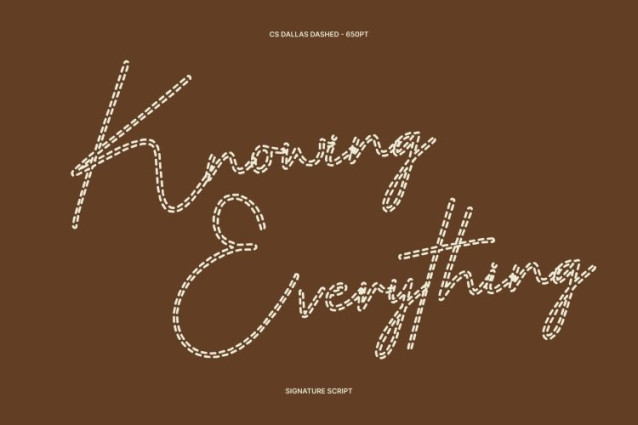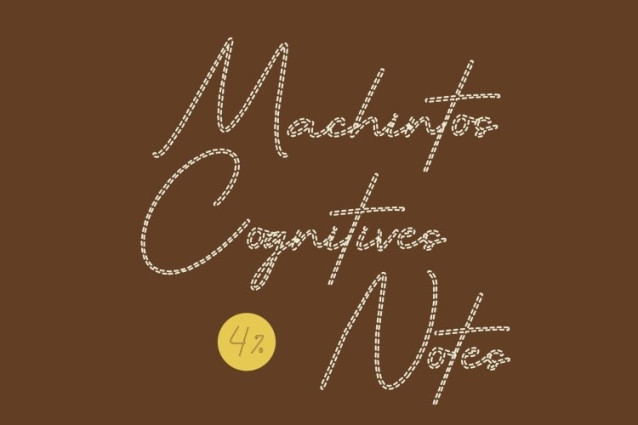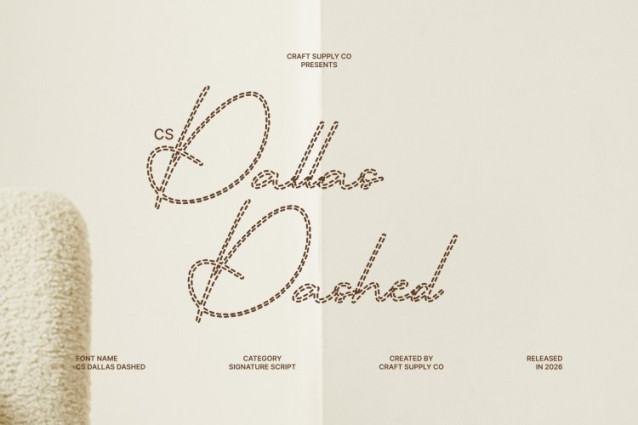
CS Dallas Dashed Font
CS Dallas Dashed Font This is a signature script font crafted to reflect the personal and distinctive nature of handwritten signatures. Inspired by natural pen movement and fluid writing, it captures an authentic handwritten feel while maintaining refined sophistication. Its smooth flow and confident rhythm create a sense of exclusivity, perfect for designs that value individuality and character.
Dashed Signature Strokes with Distinctive Style
The defining feature of this font is its dashed letter construction. Instead of solid continuous strokes, each character is formed with broken, segmented lines that mimic delicate pen trails. This dashed effect enhances the impression of a naturally lifted pen, adding movement and artistic texture to the script. The result is a signature style that feels expressive, creative, and slightly relaxed while still polished and intentional.
Elegant, Personal, and Creatively Refined
Balancing softness with confidence, conveys elegance without appearing overly formal. The segmented strokes introduce a subtle handcrafted charm, giving the font a modern artistic. It maintains readability and flow while adding a distinctive visual identity that feels both personal premium.
Ideal for Logos, Branding, and Luxury Invitations
Perfect for logos, personal branding, luxury invitations, packaging, and fashion or beauty-related projects, turns typography into a signature statement. Its dashed handwritten form adds personality and exclusivity, making it especially suited for boutique brands, and creative identities that aim to feel authentic, stylish, and memorable.